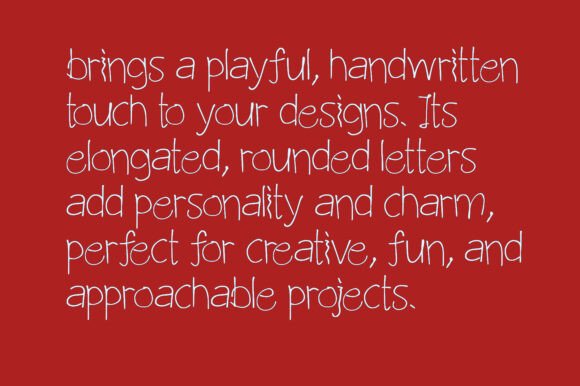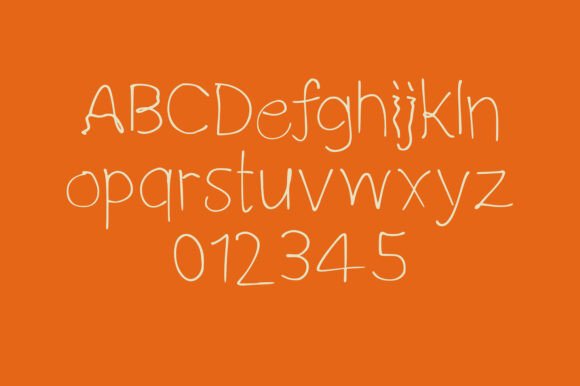
Introducing Elonga Signature Font: The Perfect Choice for Creative Projects
Are you looking for a font that can add a touch of playfulness and friendliness to your creative projects? Look no further than Elonga Signature Font. This unique font features a hand-drawn style with elongated, rounded letterforms that are sure to make your designs stand out. In this article, we’ll take a closer look at the features and benefits of Elonga Signature Font, and explore how it can be used to elevate your creative projects.
What is Elonga Signature Font?
Elonga Signature Font is a carefully crafted font that boasts a playful, hand-drawn style. Its elongated, rounded letterforms give it a distinctive look that’s both casual and friendly. This font is perfect for designers and crafters who want to add a personal touch to their work. Whether you’re creating greeting cards, posters, logos, or any other type of design, Elonga Signature Font is an excellent choice.
Key Features of Elonga Signature Font
- Playful, hand-drawn style: Elonga Signature Font features a unique, hand-drawn style that’s perfect for creative projects.
- Elongated, rounded letterforms: The font’s elongated, rounded letterforms give it a distinctive look that’s both casual and friendly.
- Casual and friendly aesthetic: Elonga Signature Font has a relaxed, approachable feel that’s ideal for designs that require a fun and playful vibe.
- Unique, slightly irregular strokes: The font’s slightly irregular strokes give it a personalized, handwritten vibe while maintaining legibility.
Benefits of Using Elonga Signature Font
So why choose Elonga Signature Font for your creative projects? Here are just a few benefits of using this versatile font:
- Adds a personal touch: Elonga Signature Font’s hand-drawn style and slightly irregular strokes give your designs a personal, human touch.
- Perfect for creative projects: This font is ideal for designers and crafters who want to add a playful, friendly vibe to their work.
- Highly legible: Despite its hand-drawn style, Elonga Signature Font is highly legible, making it perfect for use in a variety of designs.
- Versatile: Elonga Signature Font can be used in a wide range of designs, from greeting cards and posters to logos and more.
Using Elonga Signature Font in Your Designs
So how can you use Elonga Signature Font in your designs? Here are a few ideas to get you started:
- Greeting cards: Add a personal touch to your greeting cards with Elonga Signature Font.
- Posters: Use Elonga Signature Font to create eye-catching posters that are sure to grab attention.
- Logos: Elonga Signature Font is a great choice for logos that require a fun and approachable feel.
- Social media graphics: Use Elonga Signature Font to add a playful touch to your social media graphics.
Tips for Getting the Most Out of Elonga Signature Font
Here are a few tips for getting the most out of Elonga Signature Font:
- Experiment with different colors: Elonga Signature Font looks great in a variety of colors, so don’t be afraid to experiment.
- Pair with other fonts: Try pairing Elonga Signature Font with other fonts to create a unique look.
- Use in combination with images: Elonga Signature Font looks great when used in combination with images, so try incorporating it into your designs.
In conclusion, Elonga Signature Font is a versatile and playful font that’s perfect for creative projects. Its hand-drawn style, elongated letterforms, and casual aesthetic make it ideal for designers and crafters who want to add a personal touch to their work. With its high legibility and versatility, Elonga Signature Font is a great choice for a wide range of designs. So why not give it a try and see how it can elevate your creative projects?